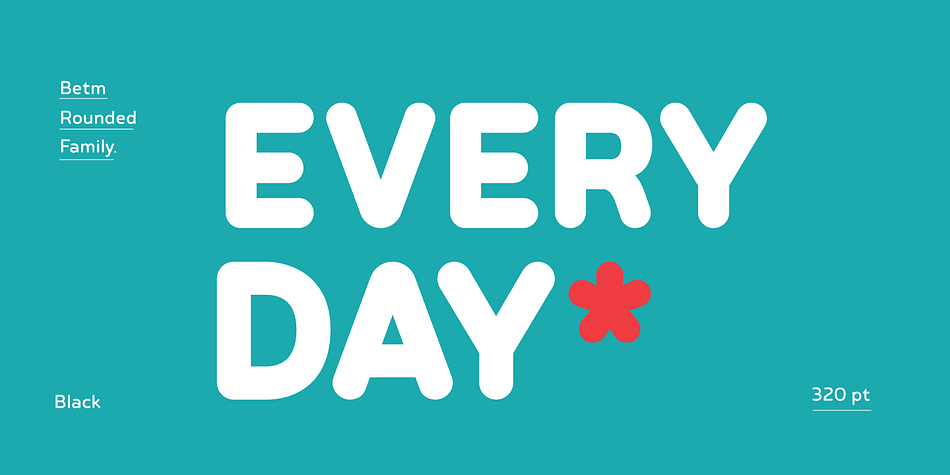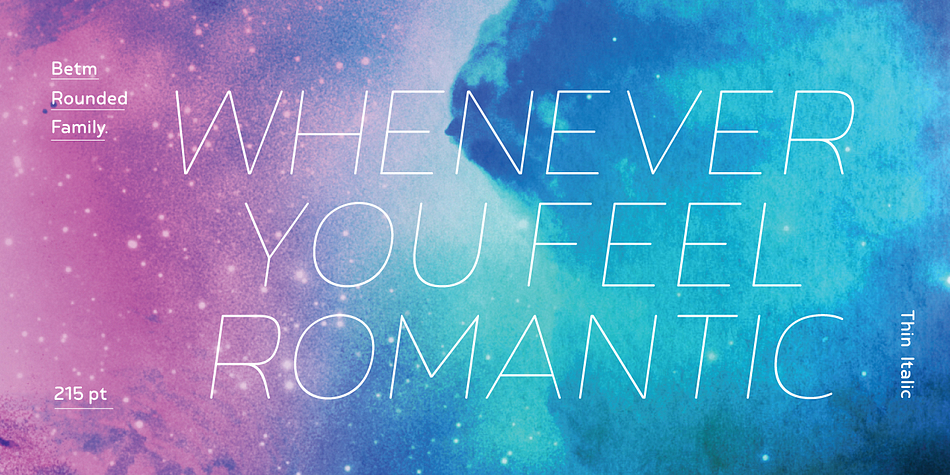
Betm Rounded
Betm Rounded is a sans serif font family. This typeface has twenty styles and was published by Typesketchbook.
The typeface of Betm Rounded is based on the successful Betm font family by font foundry Typesketchbook.
Font designer Chatnarong Jingsuphatada created Betm as a Rounded version to Betm.
Both type families consist of ten weights plus with italic versions.
This modern geometric font is very legible and can be used for headlines as well as small and long text.
Displaying the beauty and characteristics of the Betm Rounded font family.
Highlighting the Betm Rounded font family.
Betm Rounded font family sample image.
Betm Rounded is a a twenty font family.
Betm Rounded font family example.
Betm Rounded font family sample image.
Betm Rounded is a twenty font, sans serif family by Typesketchbook.
Betm Rounded is a sans serif font family.
This typeface has twenty styles  and was published by Typesketchbook.
The typeface of Betm Rounded is based on the successful Betm font family by font foundry Typesketchbook.
Font designer Chatnarong Jingsuphatada created Betm as a Rounded version to Betm. Both type families consist of ten weights plus with italic versions.
Betm’s typeface has a friendly and modern sans serif appearance. This modern geometric font is very legible and can be used for headlines as well as small and long text.